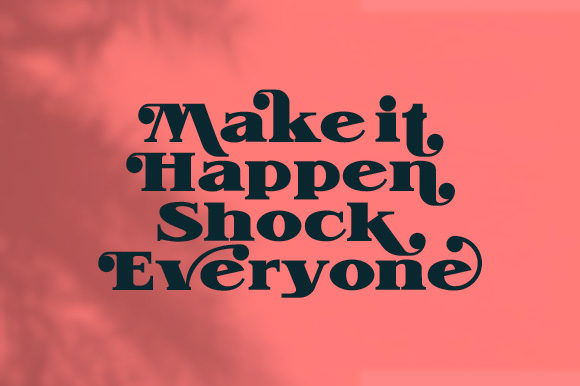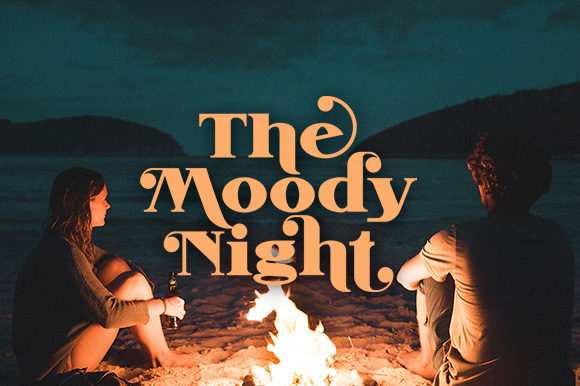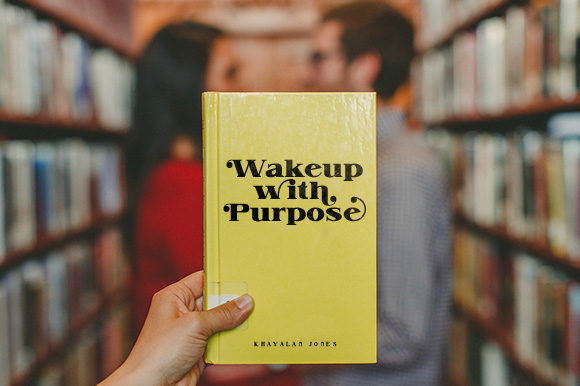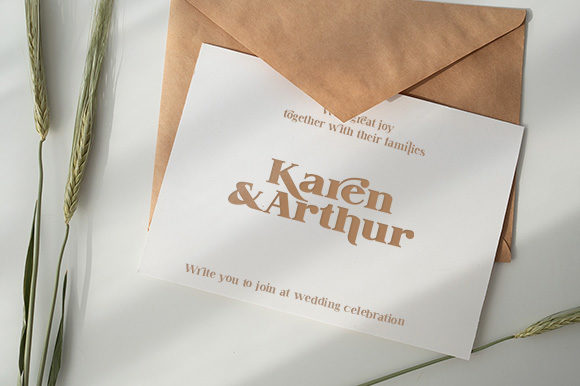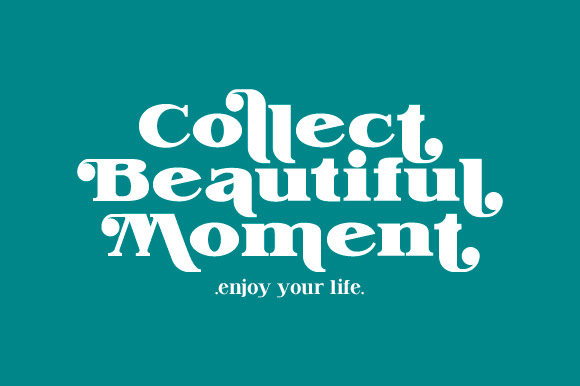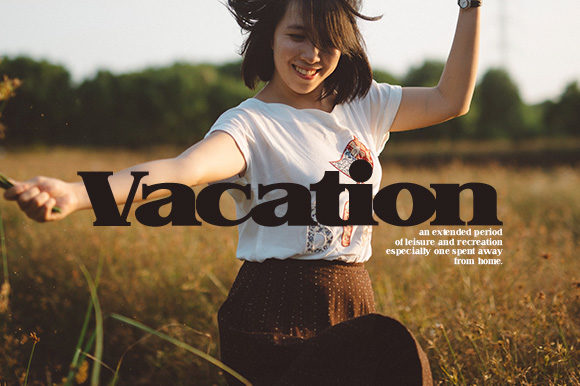
Introduction to Royale Imogen Font
Royale Imogen is an elegant and magical serif font.
Fall in love with its incredibly versatile style and use it to create gorgeous wedding invitations, beautiful stationary art, eye-catching social media posts, and much more .